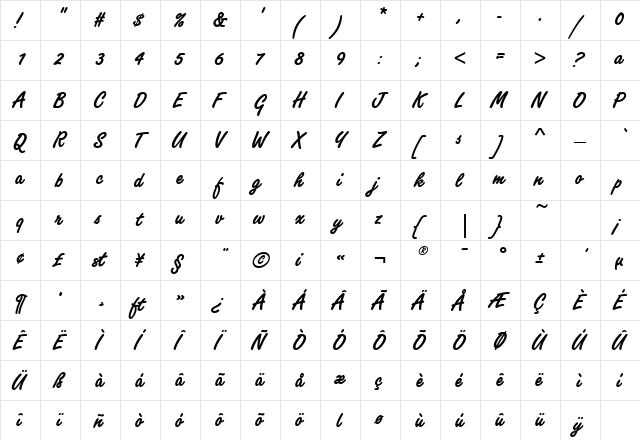
Freestyle Script EF Bold Alternate Regular Font Preview
Design Context for Freestyle Script EF Bold Alternate Typeface
Freestyle Script EF Bold Alternate brings a calligraphic fluidity to the page — its connecting strokes and expressive curves give it an unmistakably human quality. The heavy weight commands attention and anchors typographic hierarchies.
Font Pairing: Combine Freestyle Script EF Bold Alternate with a simple geometric sans for maximum contrast — the tension between flowing curves and clean structure is a classic typographic pairing.
Pro Tip: Pair Freestyle Script EF Bold Alternate with a clean sans-serif for supporting text. The contrast between fluid script and geometric structure creates an elegant typographic hierarchy.